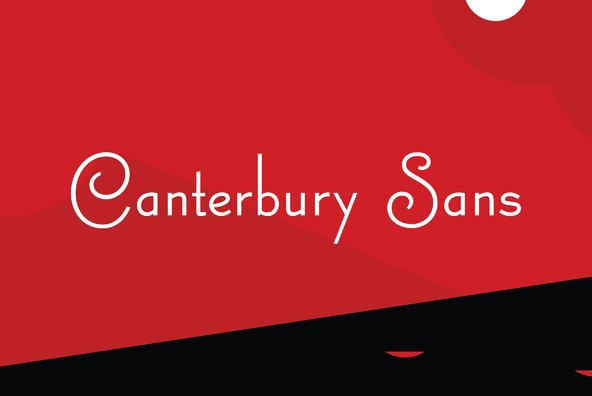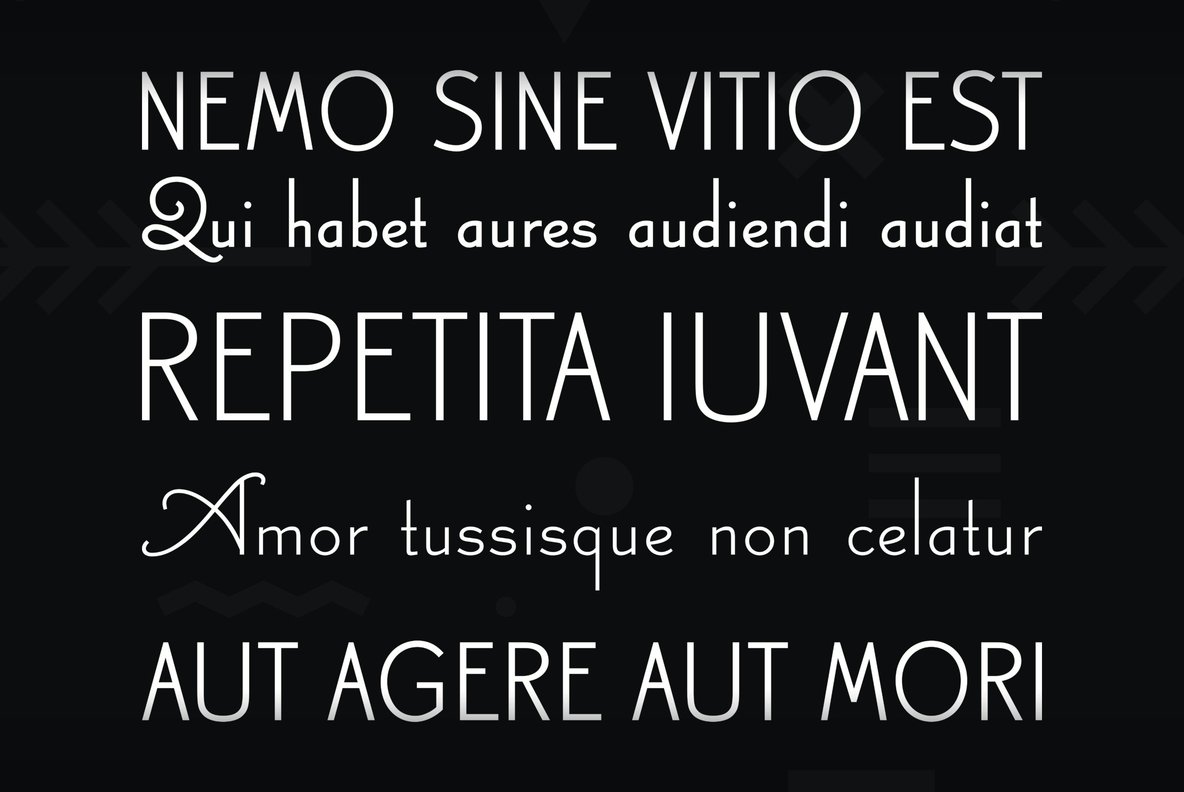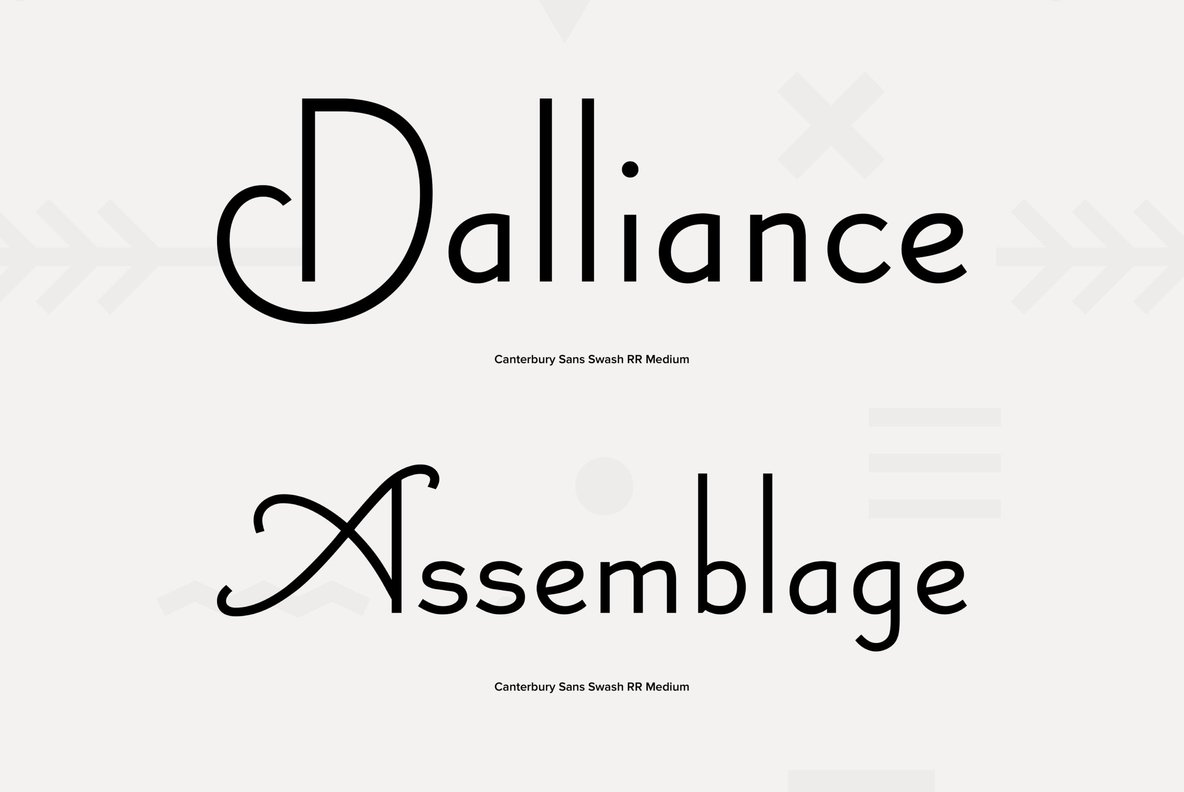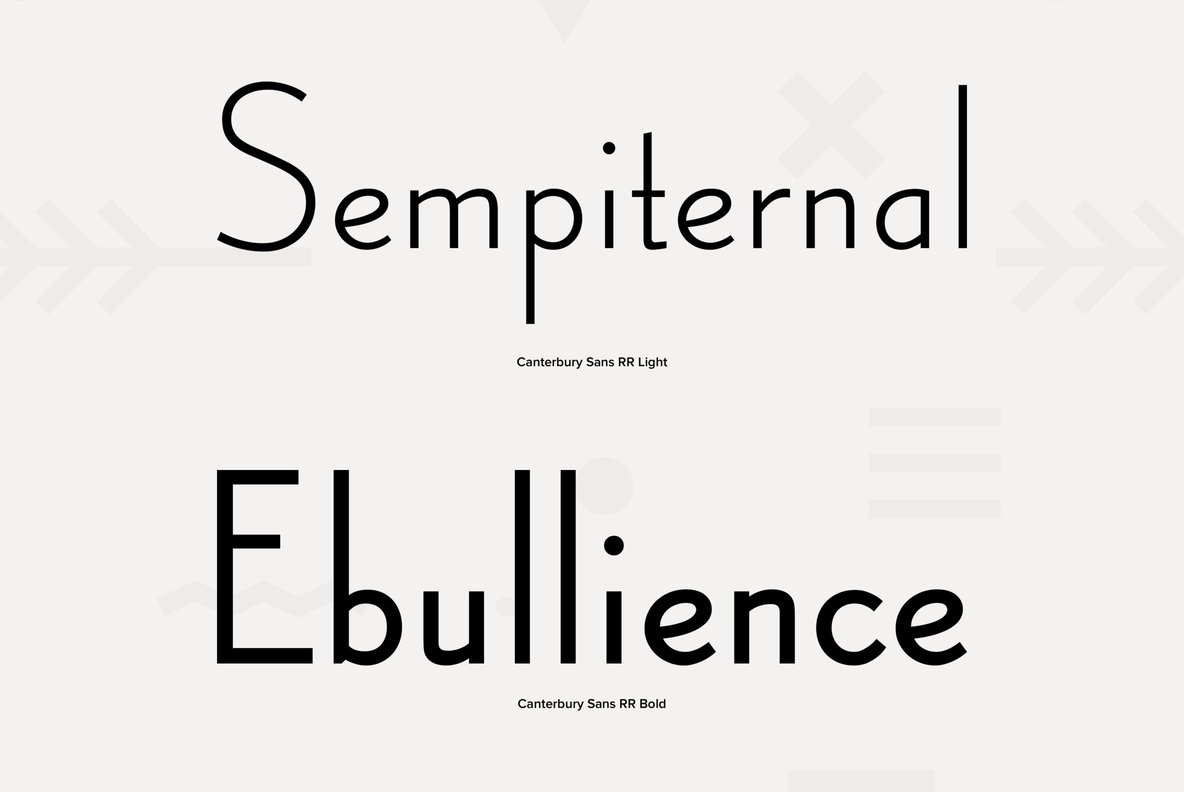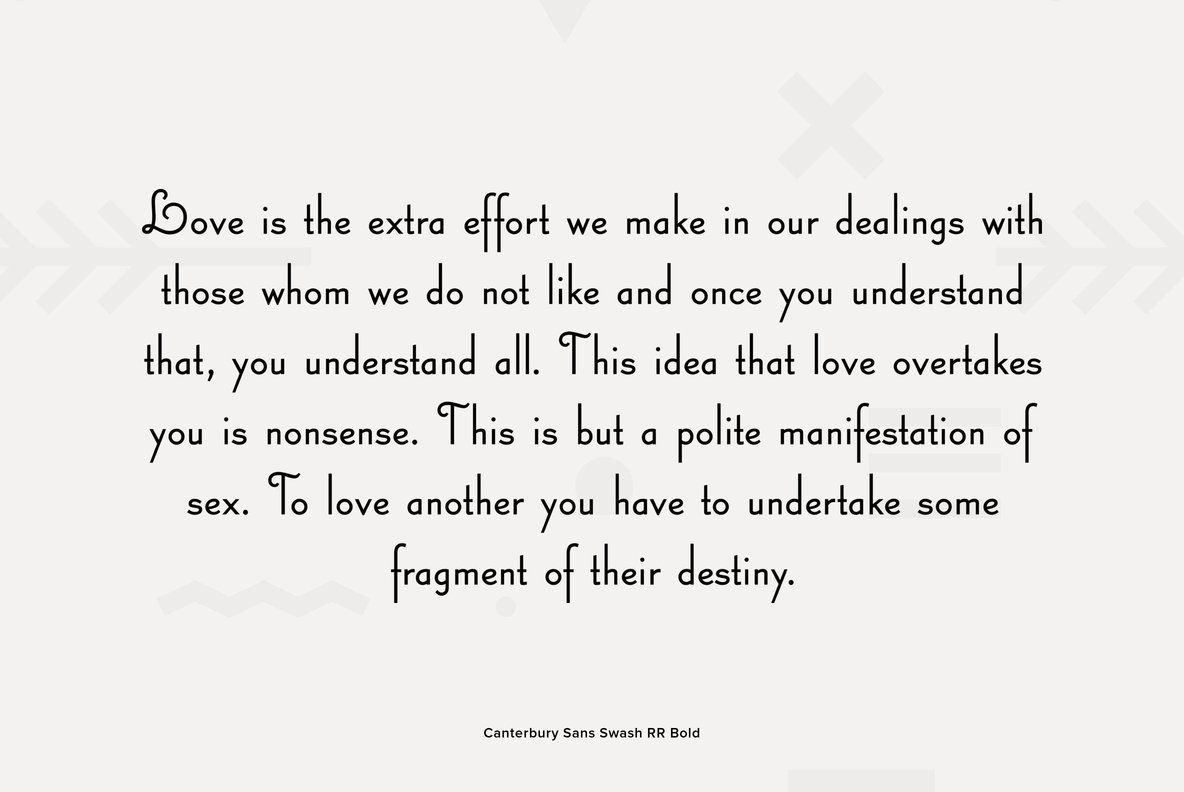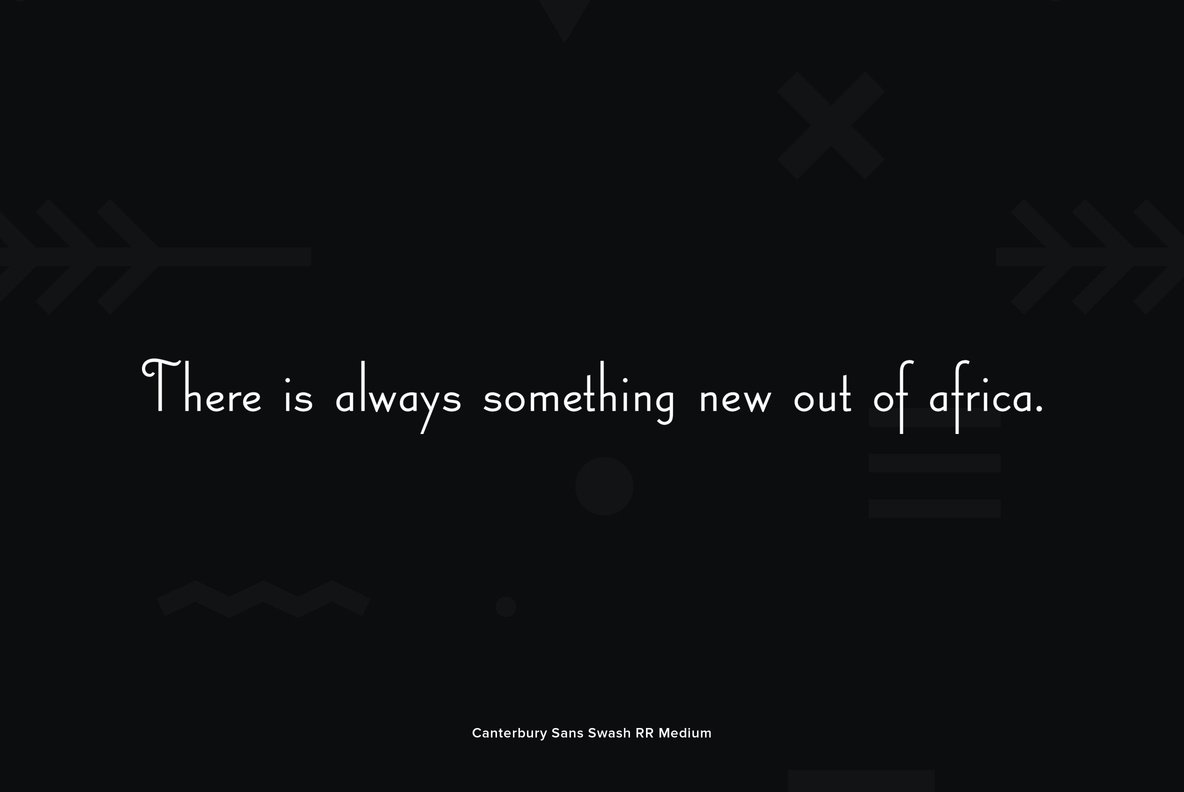
Based on the Morris F. Benton for ATF in 1920, it was not completed for production until 1926. The serif version we released a few years ago was so popular, that we decided to design a complementary sans serif version in three weights.
Based on the Morris F. Benton for ATF in 1920, it was not completed for production until 1926. The serif version we released a few years ago was so popular, that we decided to design a complementary sans serif version in three weights, along with three corresponding Swash fonts.